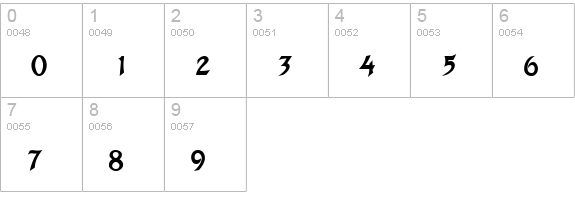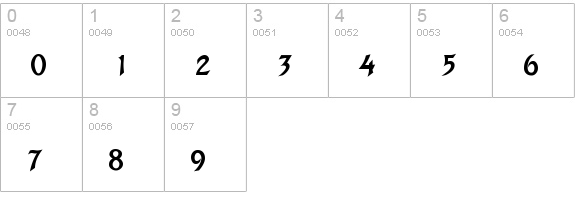
AdaMF Bold Font Details
AdaMF Bold is a strong, high-contrast variant in the AdaMF typeface family \xE2\x80\x94 well suited to headlines, attention-grabbing titles, and strong calls-to-action.
Introducing AdaMF Bold font, a striking and versatile typeface designed to make a bold statement in your designs. With its strong, modern aesthetic and eye-catching presence, AdaMF Bold is perfect for headlines, titles, logos, and more. The sleek lines and unique curves of this font give it a contemporary feel that will captivate your audience. What's even better is that AdaMF Bold is available for free download at FontsMarket.com. This means you can easily add this standout font to your collection without breaking the bank. Whether you're a graphic designer, content creator, or just someone looking to spice up their projects, AdaMF Bold is a must-have addition to your font library. Download it today and let your creativity shine with this dynamic and impactful typeface.